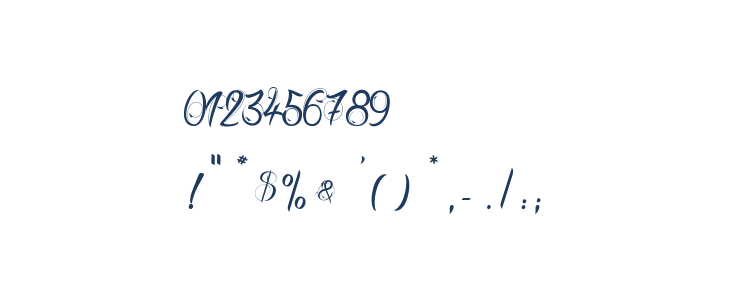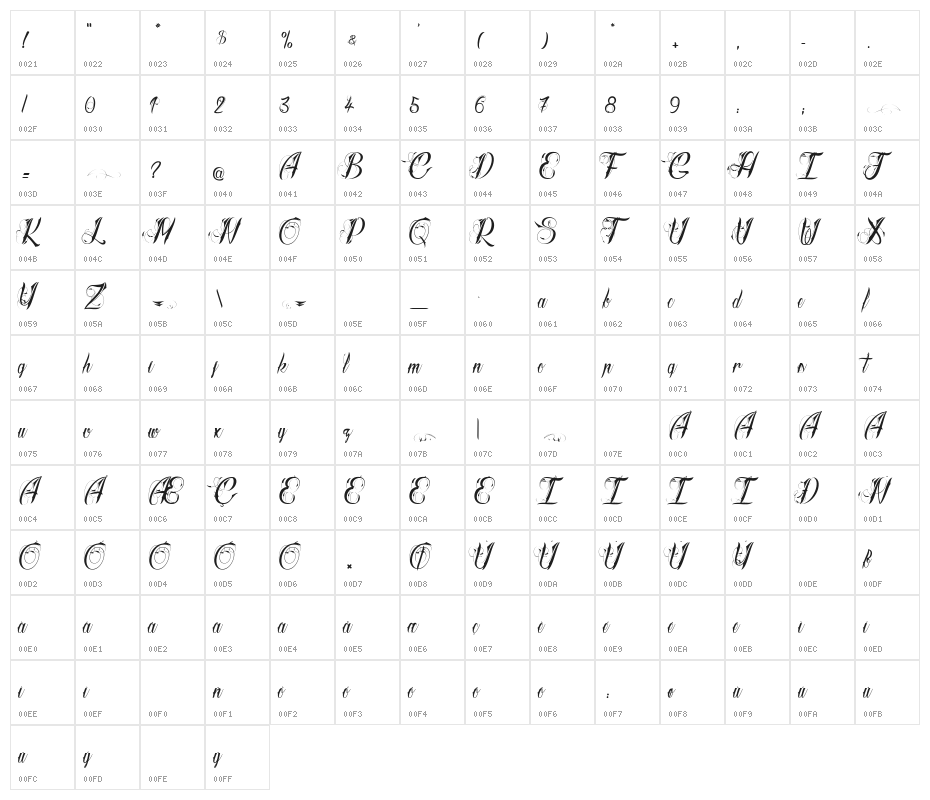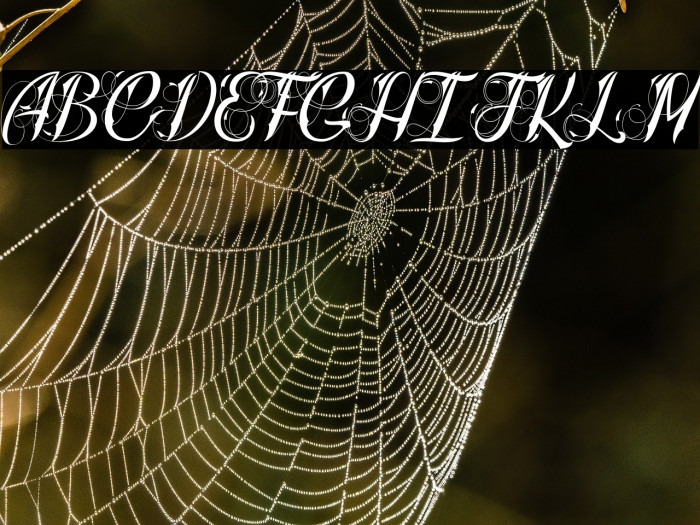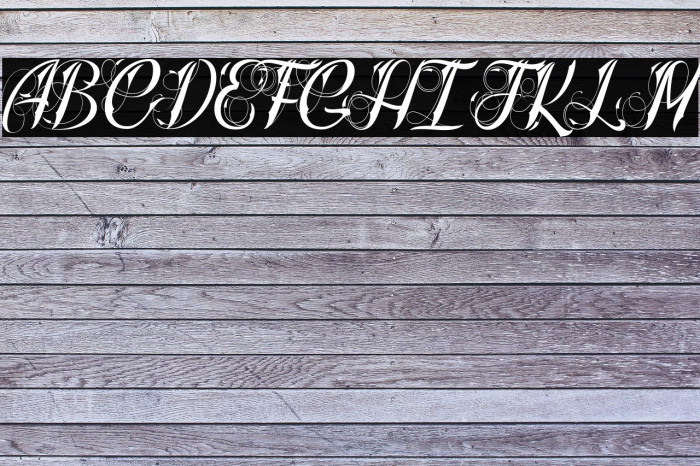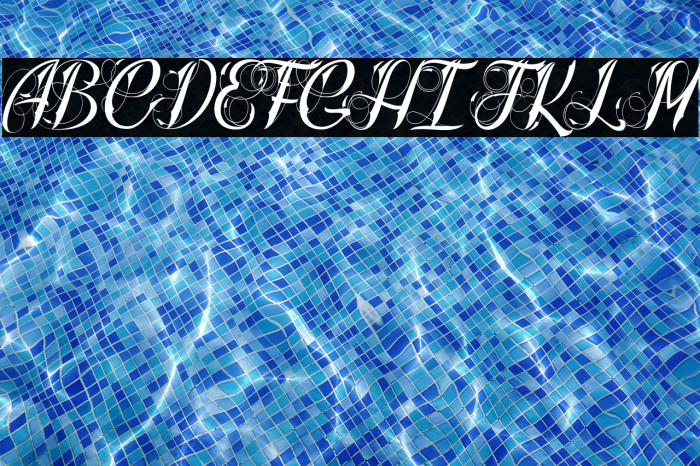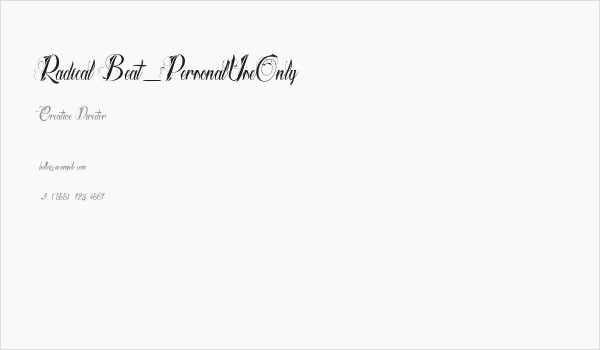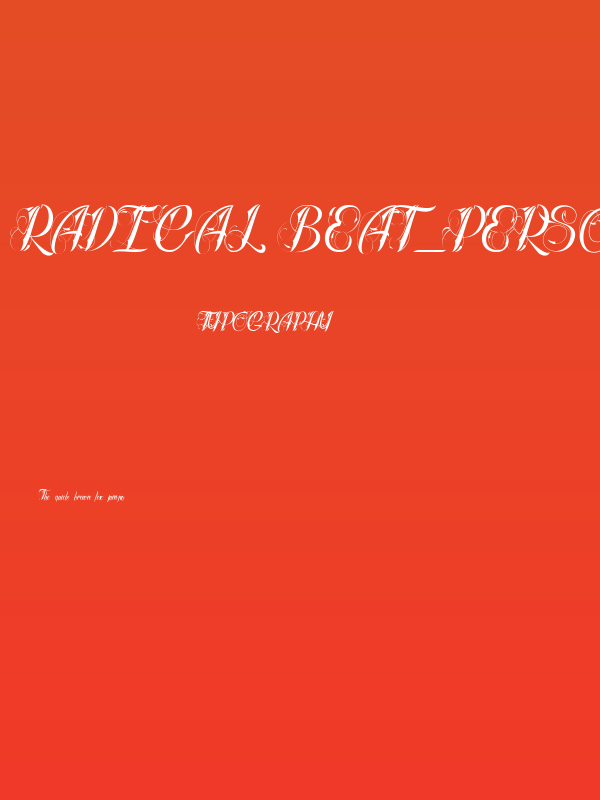
Radical Beat_PersonalUseOnly Font
Radical Beat_PersonalUseOnly Description
This font is an ornate and decorative script style, characterized by its elaborate swirls and flourishes. The uppercase letters are particularly intricate, with each character featuring unique embellishments that create a sense of elegance and sophistication. The lowercase letters maintain a flowing, cursive style, complementing the uppercase with a slightly more restrained design. Numbers and special characters are also included, following the same decorative theme. This font is ideal for projects that require a touch of luxury and artistic flair, such as invitations, branding, or high-end product packaging.
| Use Case | Logos, Invitations, Decorative Text |
| Proposed Projects | Ideal for wedding invitations, luxury branding, artistic posters, and elegant product packaging. |